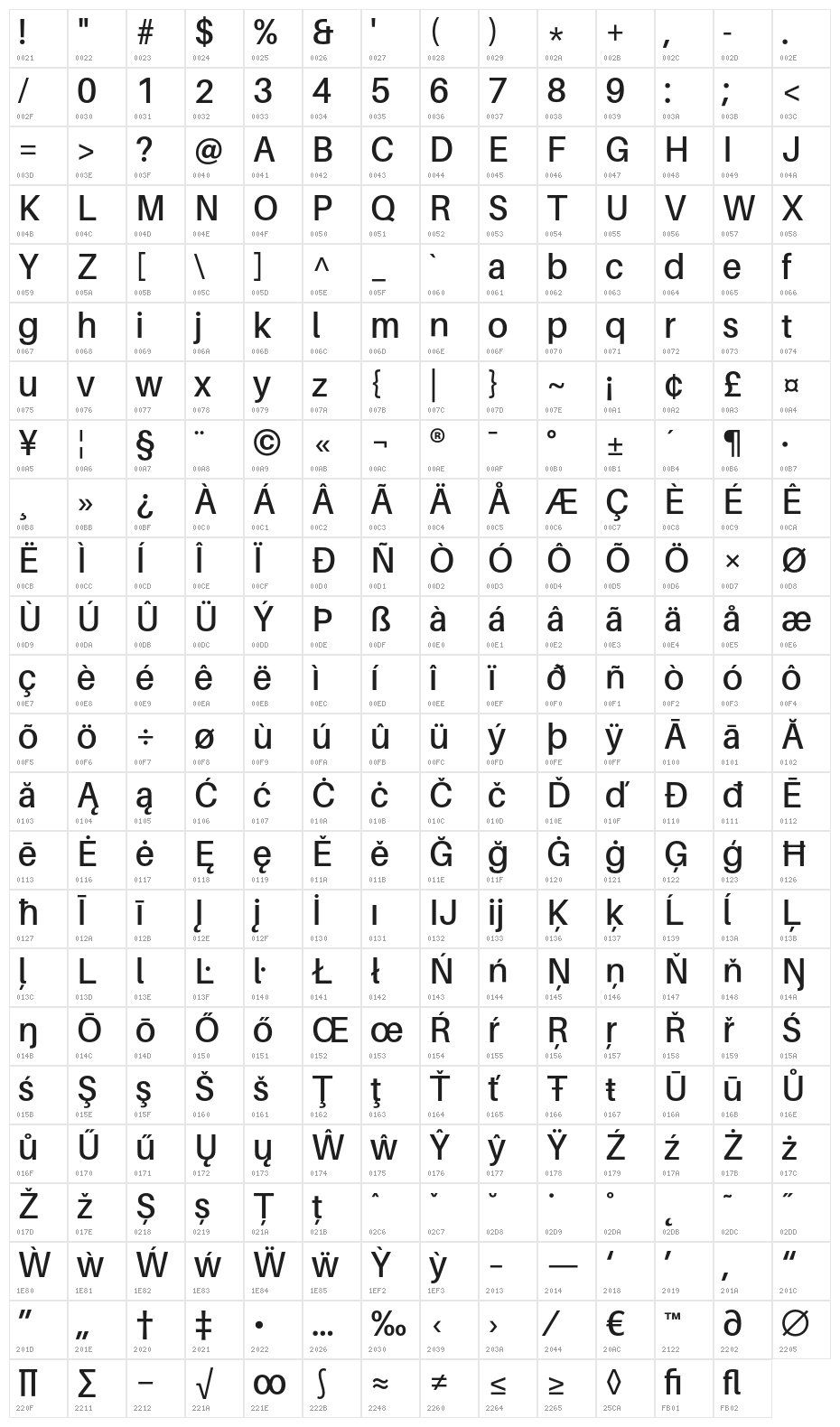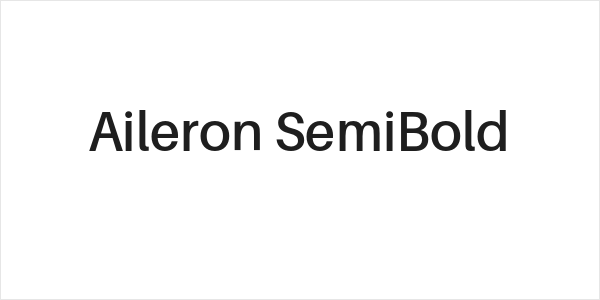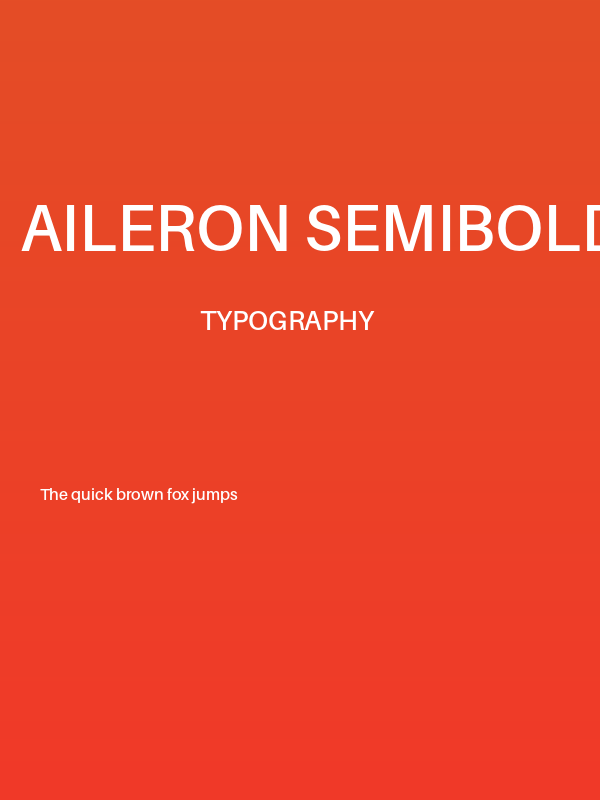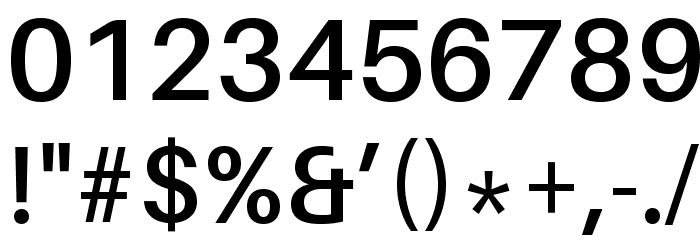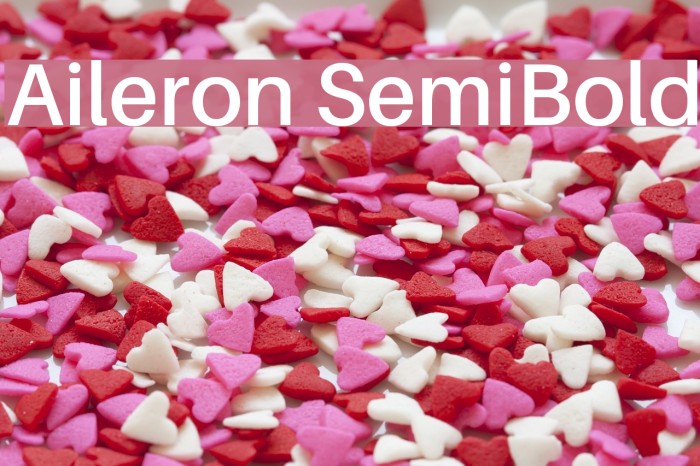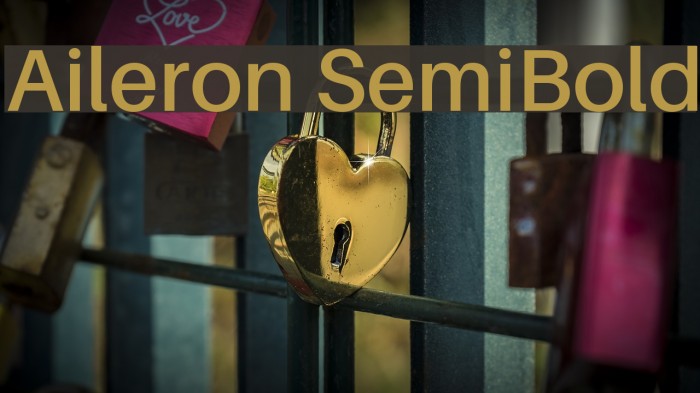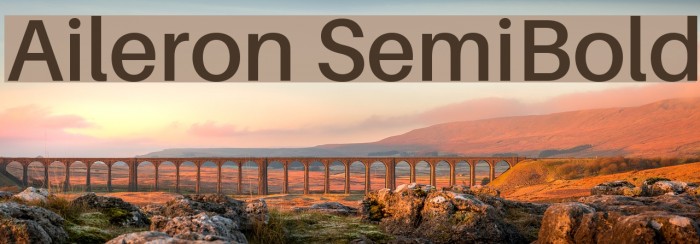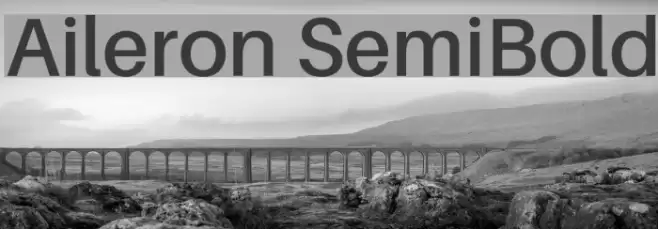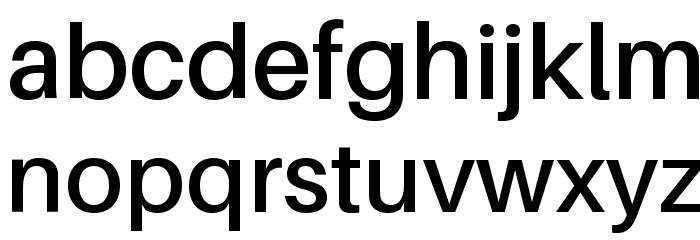
Aileron SemiBold Font
Aileron SemiBold Description
This font exhibits a clean and modern sans-serif style, characterized by its semi-bold weight that provides a balanced and legible appearance. The characters are well-proportioned with a consistent stroke width, offering a harmonious and professional look. The uppercase letters are slightly taller than the lowercase, maintaining a uniform baseline. The numerals are clear and distinct, ensuring readability in various contexts. Special characters are designed with precision, complementing the overall aesthetic. This font is versatile, suitable for both digital and print media.
| Use Case | Headlines, Body text, Logos |
| Proposed Projects | Ideal for branding, web design, advertising, and editorial layouts where clarity and modernity are essential. |